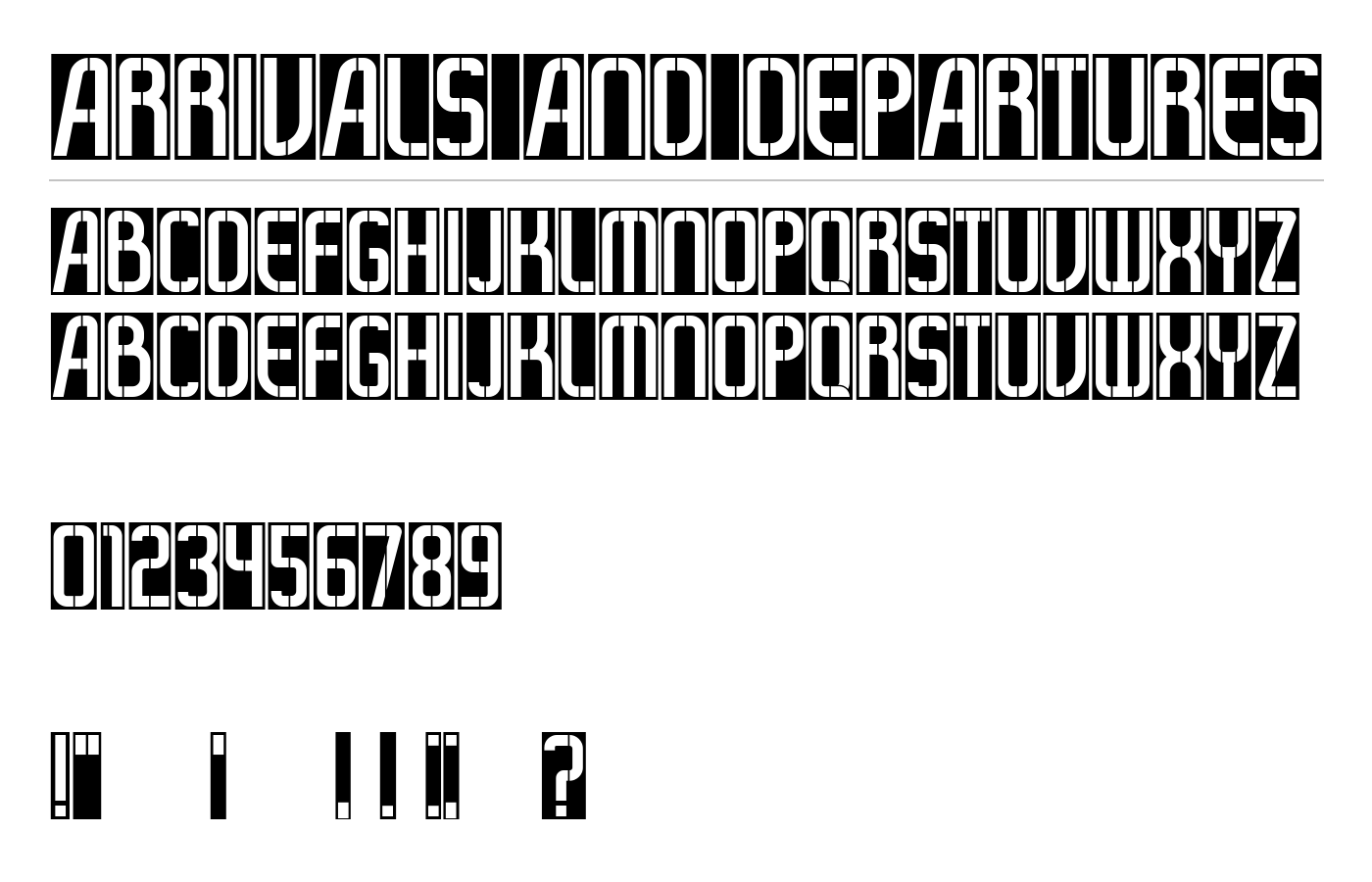
Arrivals And Departures is a bold, condensed sans serif font with a distinctive stencil style that combines geometric precision and strong vertical lines. Its high contrast between thick and thin strokes along with the unique cut-out details gives it a modern, industrial yet slightly retro feel, perfect for impactful headlines, signage, and branding that require a sense of urgency and attention. This font works well for transport, tech, and sports themes where a bold, legible, and stylish display type is needed.
Arrivals And Departures Font
About Arrivals And Departures Font